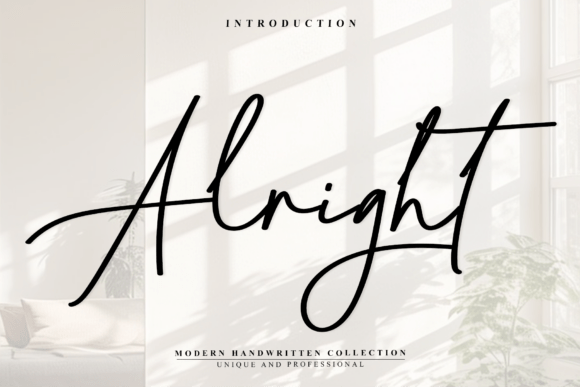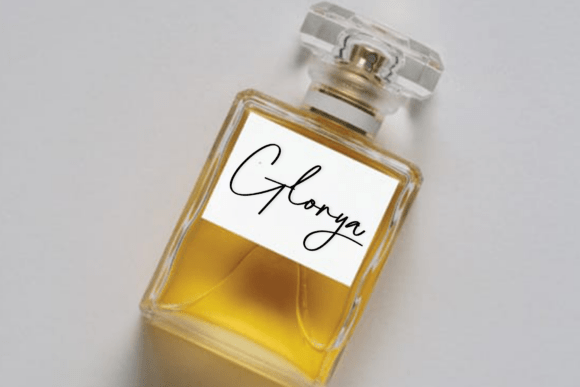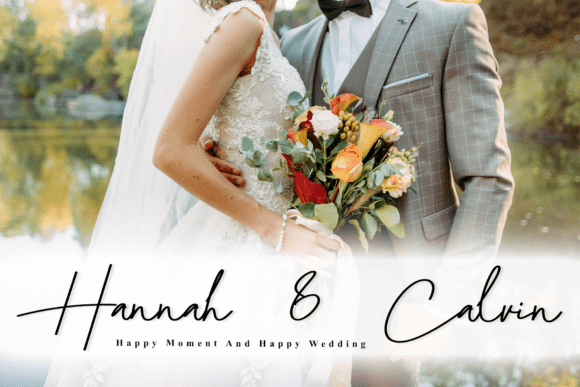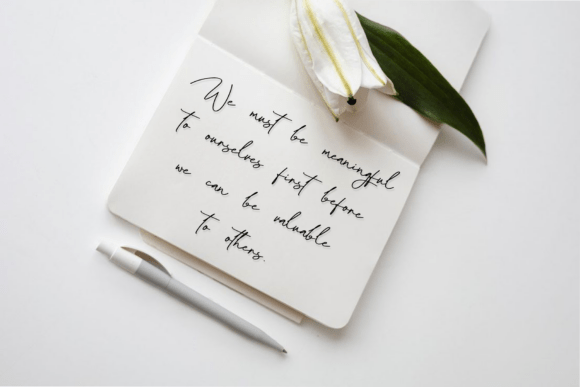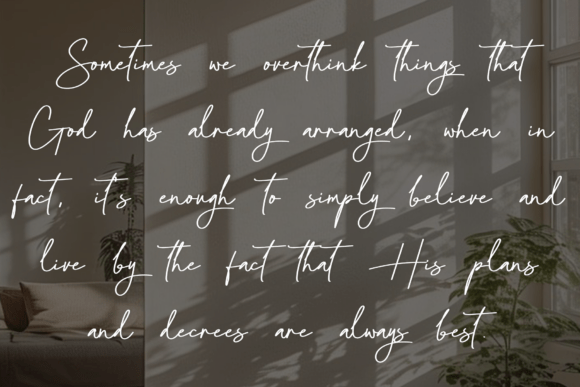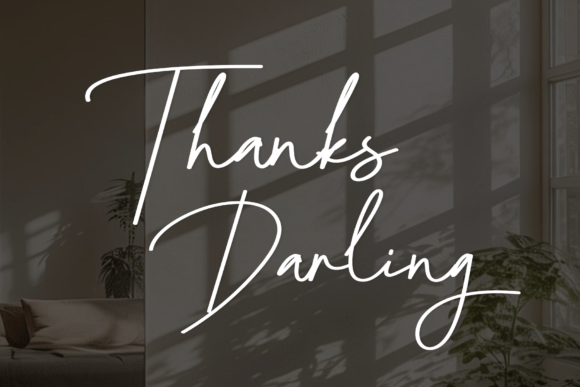
The Perfect Script: Elevate Your Designs with Alright Font
Have you ever poured your heart and soul into a design project, only to feel like something’s missing? That’s exactly what happened to me when I was working on a wedding invitation for a close friend. I wanted to convey the love and joy that filled the air, but the words just didn’t seem to do it justice.
That’s when I stumbled upon the Alright Font, a luxurious and emotional script font that added an undeniable touch of sophistication to my design. This beautifully crafted typeface features smooth, connected letterforms with stunning, sweeping swashes and elegant flourish details that make any message feel truly special.
As a designer, I can attest to the value of having a versatile and high-end font like Alright Font in your arsenal. Its professional yet unique calligraphy style ensures that your message is delivered with grace and high-end flair, making it perfect for projects that demand a sense of personalized elegance and romance.
Alright Font Key Features
- Unique Characteristics: The Alright Font features a modern and clean design with rounded edges, making it suitable for various digital and print applications.
Alright Font Review
Alright, let’s get real – I’ve worked with my fair share of fonts, and I’m here to give you the lowdown on the Alright Font.
- Unique Character: Alright Font has a distinct, playful feel that’s perfect for casual, creative projects.
- Good Legibility: The font is clear and easy to read, even at smaller sizes.
- Works Well with Images: The font pairs nicely with images and graphics, making it a great choice for design projects that need a bit of whimsy.
- Limited Versatility: Alright Font might not be the best choice for formal or professional projects, as it’s a bit too playful.
- Some Distortion at Large Sizes: While the font is great at smaller sizes, it can get a bit distorted at larger sizes.
Alright Font is a solid choice for designers who want to add a bit of personality to their projects. While it has some limitations, it’s a great option for casual, creative work. Just be aware of its limitations and use it accordingly.
Alright Font: A Practical Application Guide
Tips for Getting the Most Out of Alright Font
Use Alright Font for headlines, titles, and other large text elements to create a bold and eye-catching design. Experiment with different font styles and sizes to achieve the desired look. Combine Alright Font with other fonts to create a unique and interesting typographic effect.
Alright Font is commonly used for:
- Brand logos and identities
- Editorial and journalistic content
Alternatives to “Alright Font” for Designers
Montserrat is a modern sans-serif font that is highly legible and versatile. It is a great choice for digital products, websites, and mobile apps. Montserrat has a similar geometric feel to Alright Font but with a more condensed and sleek appearance.
Lato is a clean and elegant sans-serif font that works well for body text and headings. It has a friendly and approachable feel, making it suitable for a wide range of design projects, including corporate websites and magazines. Lato is more rounded and less geometric compared to Alright Font.
Open Sans is a highly legible and versatile sans-serif font that is suitable for digital products, websites, and print materials. It has a neutral and clean appearance, making it a great choice for a wide range of design projects. Open Sans is more rounded and less geometric compared to Alright Font, but still has a modern feel.